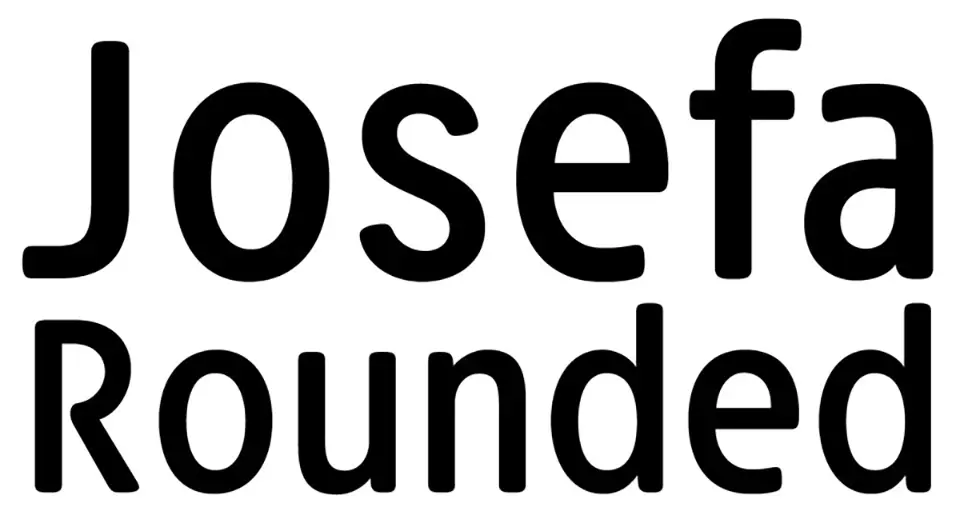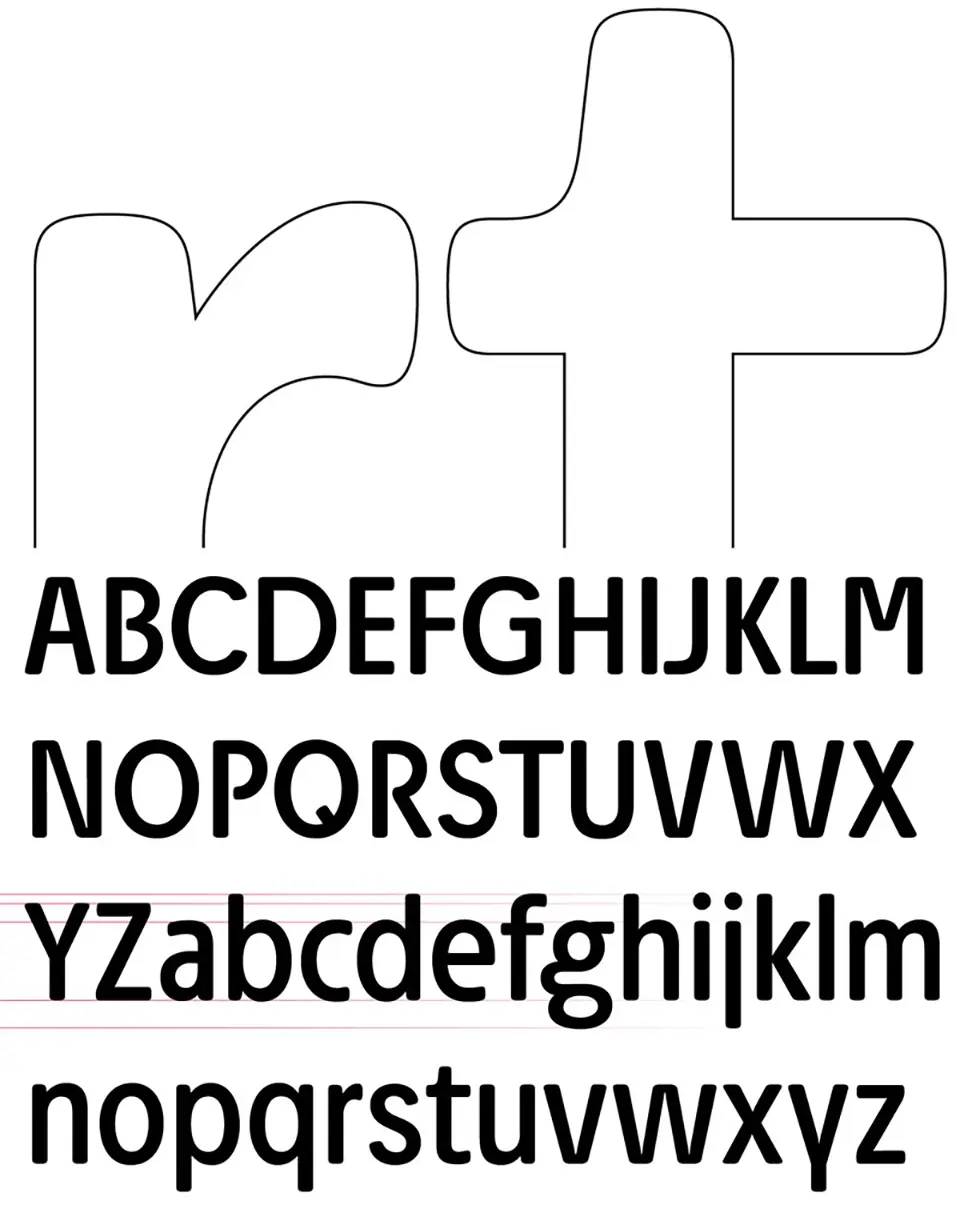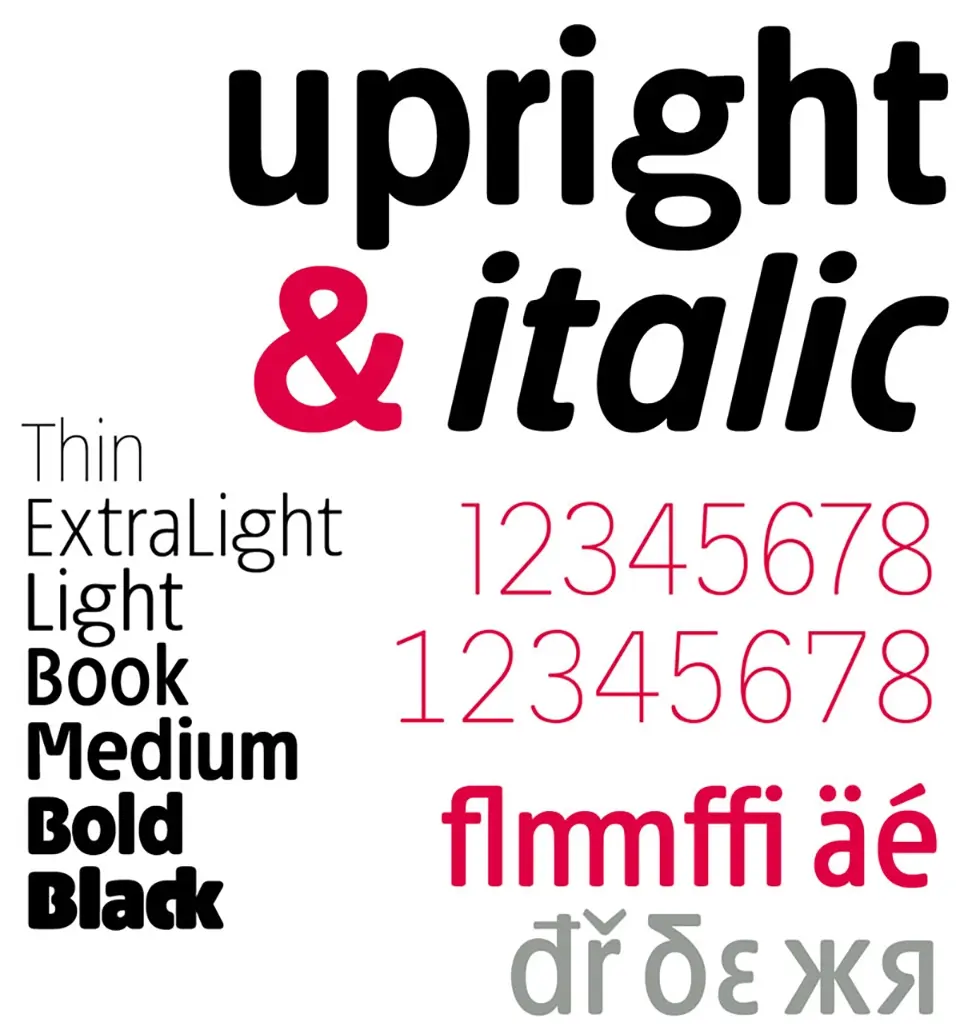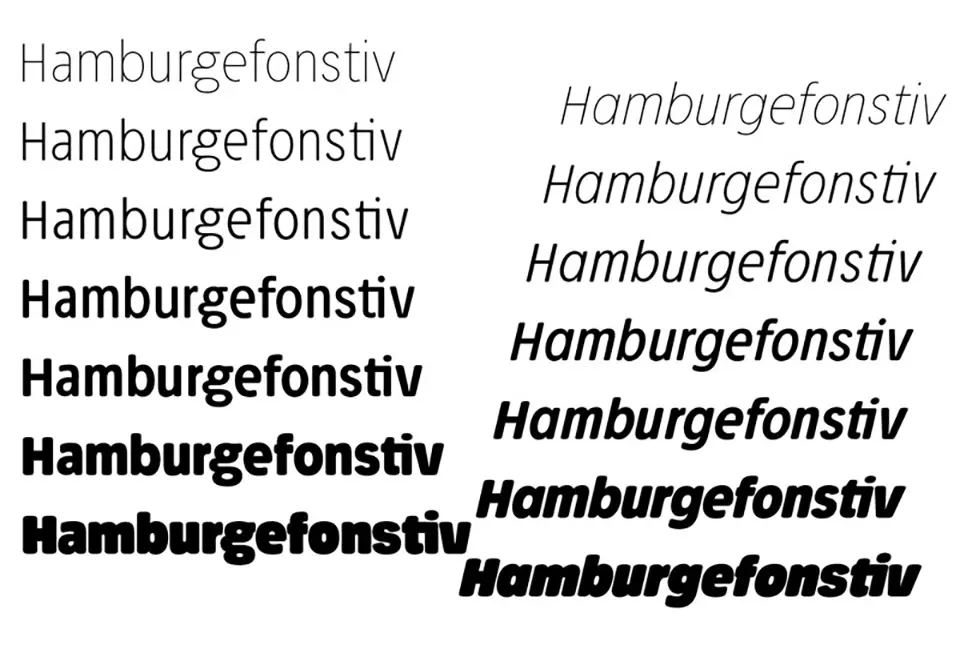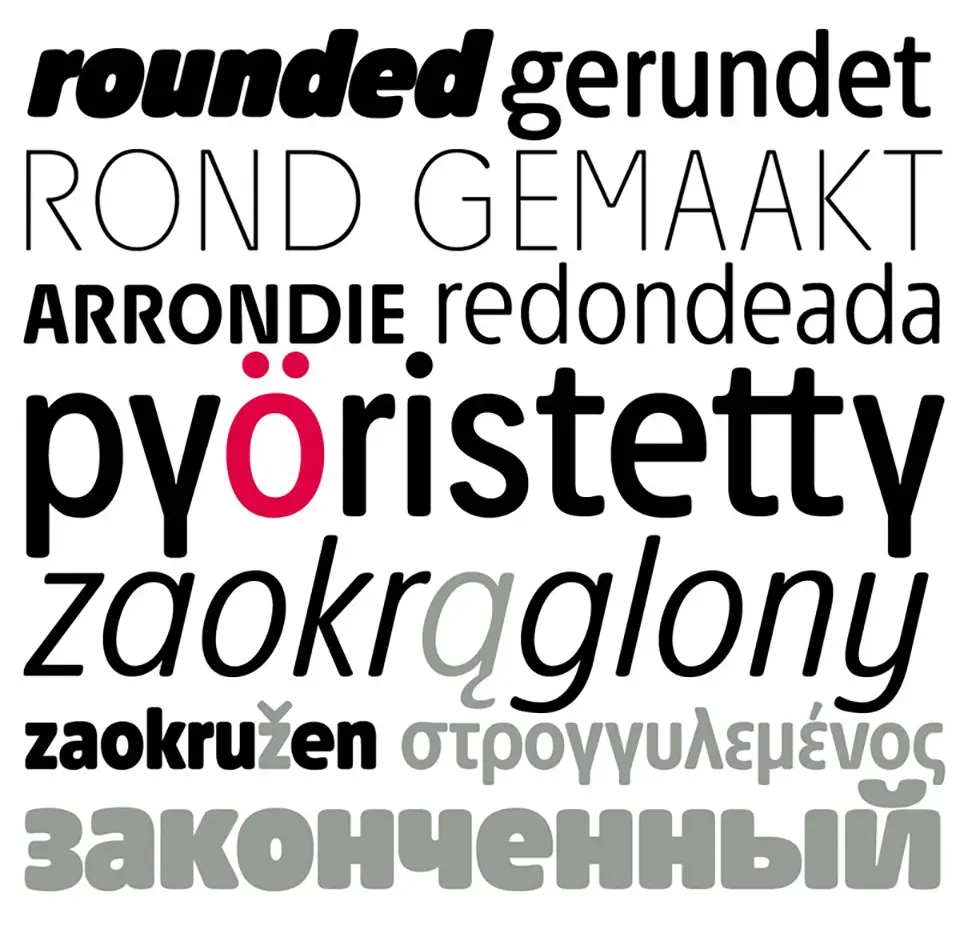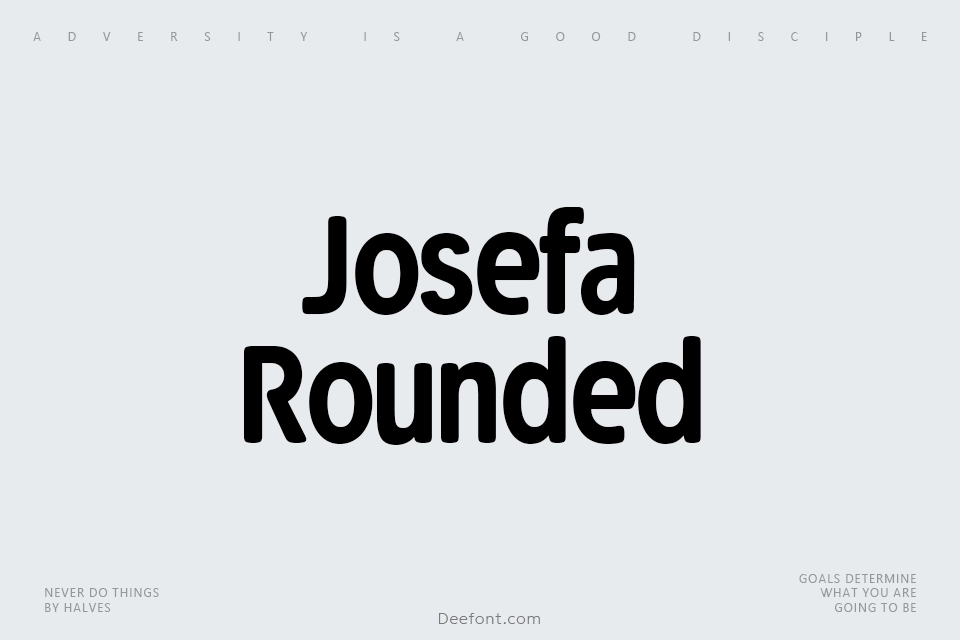
Josefa Rounded Font Family
Josefa Rounded is a modern, legible sans serif typeface designed with softened round edges and balanced narrow proportions. This beautifully crafted font features distinctive character forms, including uniquely styled B, P, and R letters with open designs, making it ideal for both headlines and body text. Available in seven weights with corresponding italics, it offers versatility for contemporary design projects requiring gentleness and professional polish. The font's high x-height, compact word images, and smooth aesthetic make it perfect for branding, editorial design, and web applications seeking a friendly yet refined typographic solution.